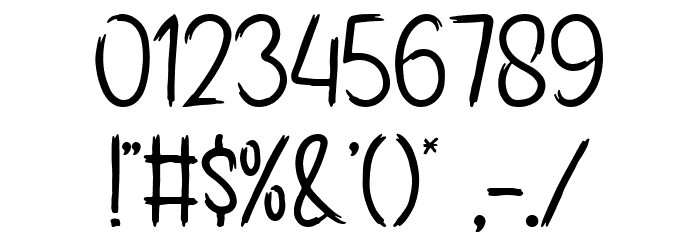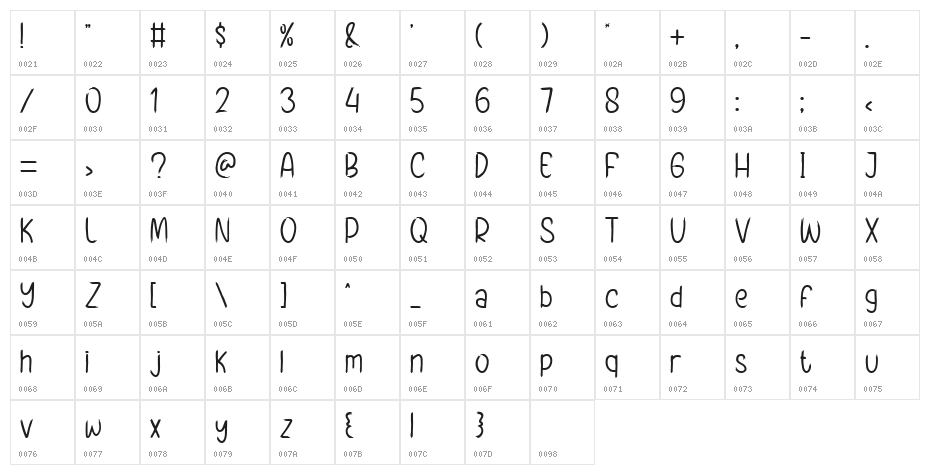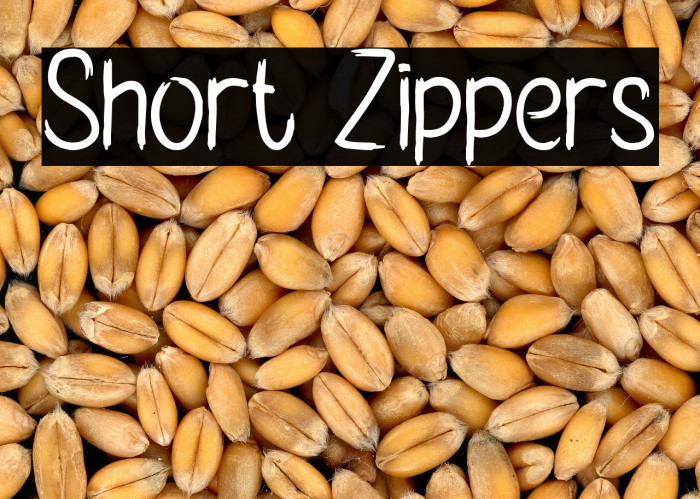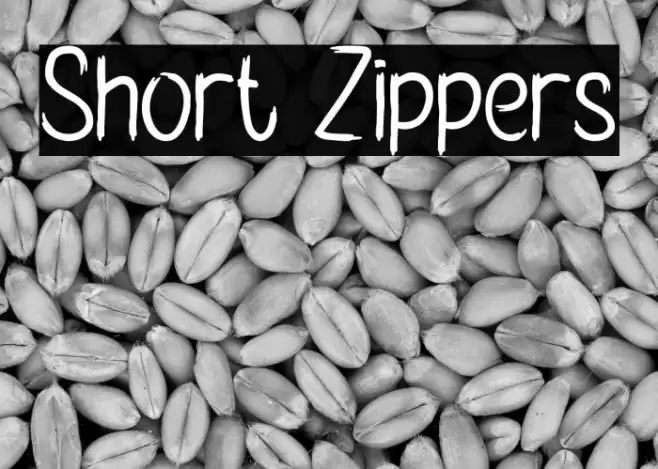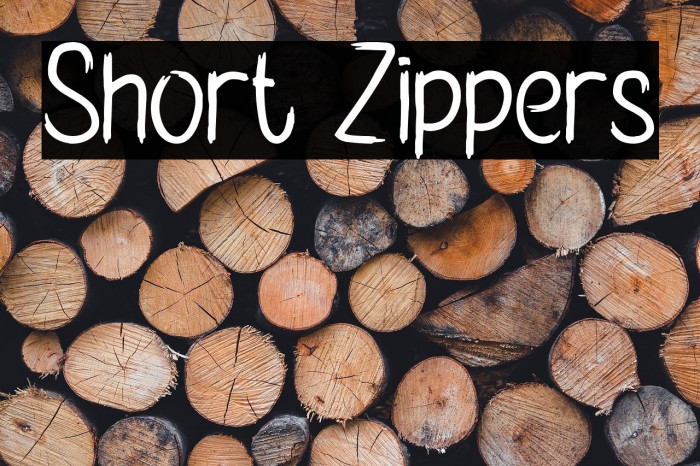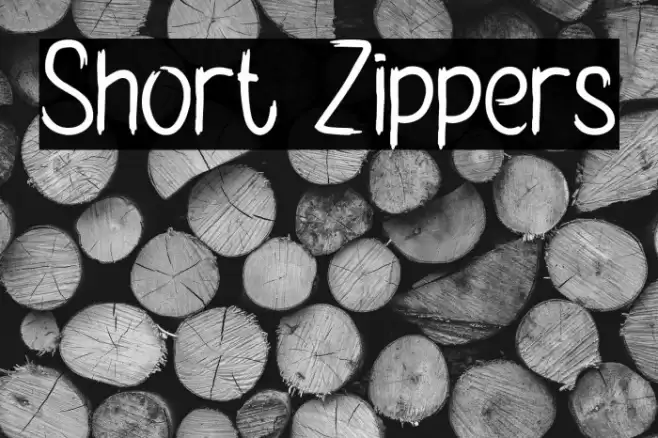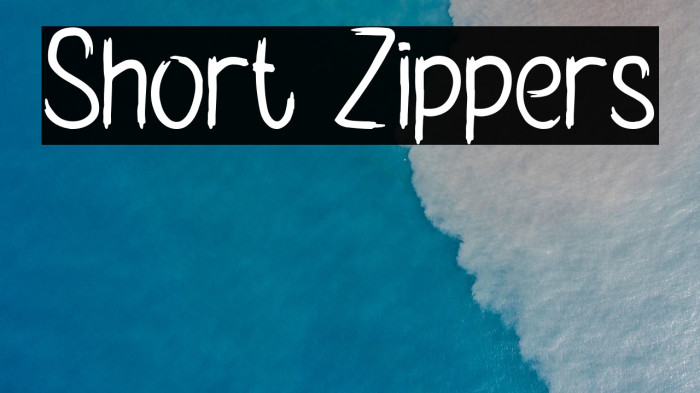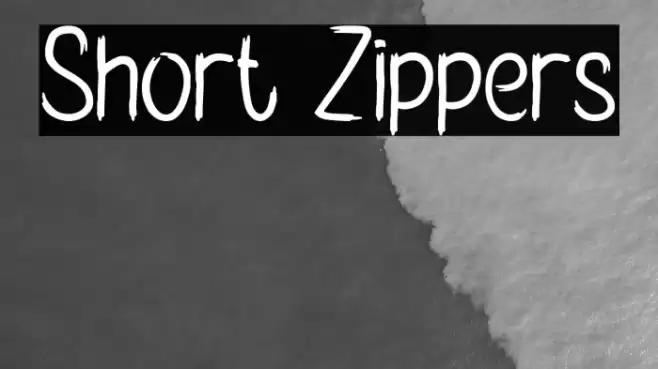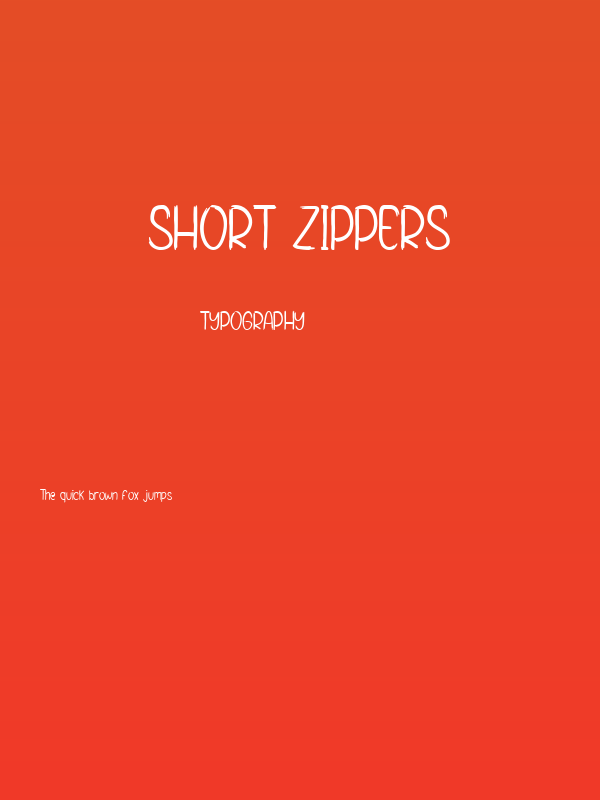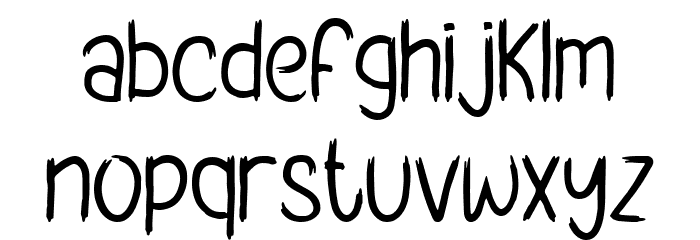
Short Zippers Font
Short Zippers Description
This font features a playful and energetic style, characterized by its handwritten appearance. The letters have a slightly irregular baseline, giving it a casual and informal feel. The strokes are uneven, with some letters exhibiting a brush-like texture that adds to its dynamic look. The uppercase and lowercase letters maintain a consistent style, with rounded edges and a slight slant. Numbers and special characters are designed to match the overall aesthetic, ensuring a cohesive look across all text elements. This font is perfect for projects that require a personal touch or a creative flair.